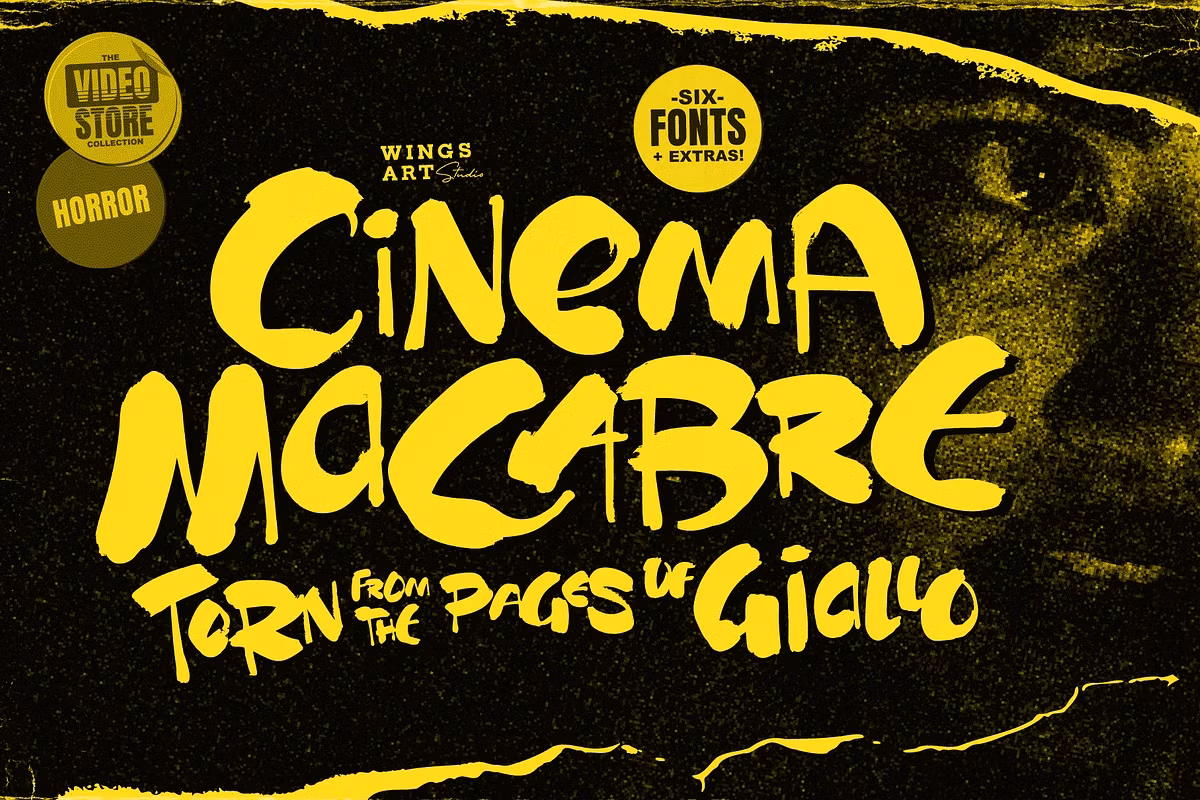
Embrace the eerie elegance of vintage horror with Cinema Macabre Giallo Horror Font Free Download — a chillingly stylish typeface inspired by classic Giallo film posters. With sharp edges, dramatic angles, and retro flair, this font is perfect for horror movie titles, Halloween promotions, eerie book covers, mystery games, and all things spine-tingling.
Cinema Macabre captures the suspense, drama, and cinematic power of 1970s Italian horror — delivering bold, eye-catching typography that screams style and suspense. The font includes uppercase letters, numerals, punctuation, and multilingual support, giving you all the tools to craft intense, dramatic visuals.